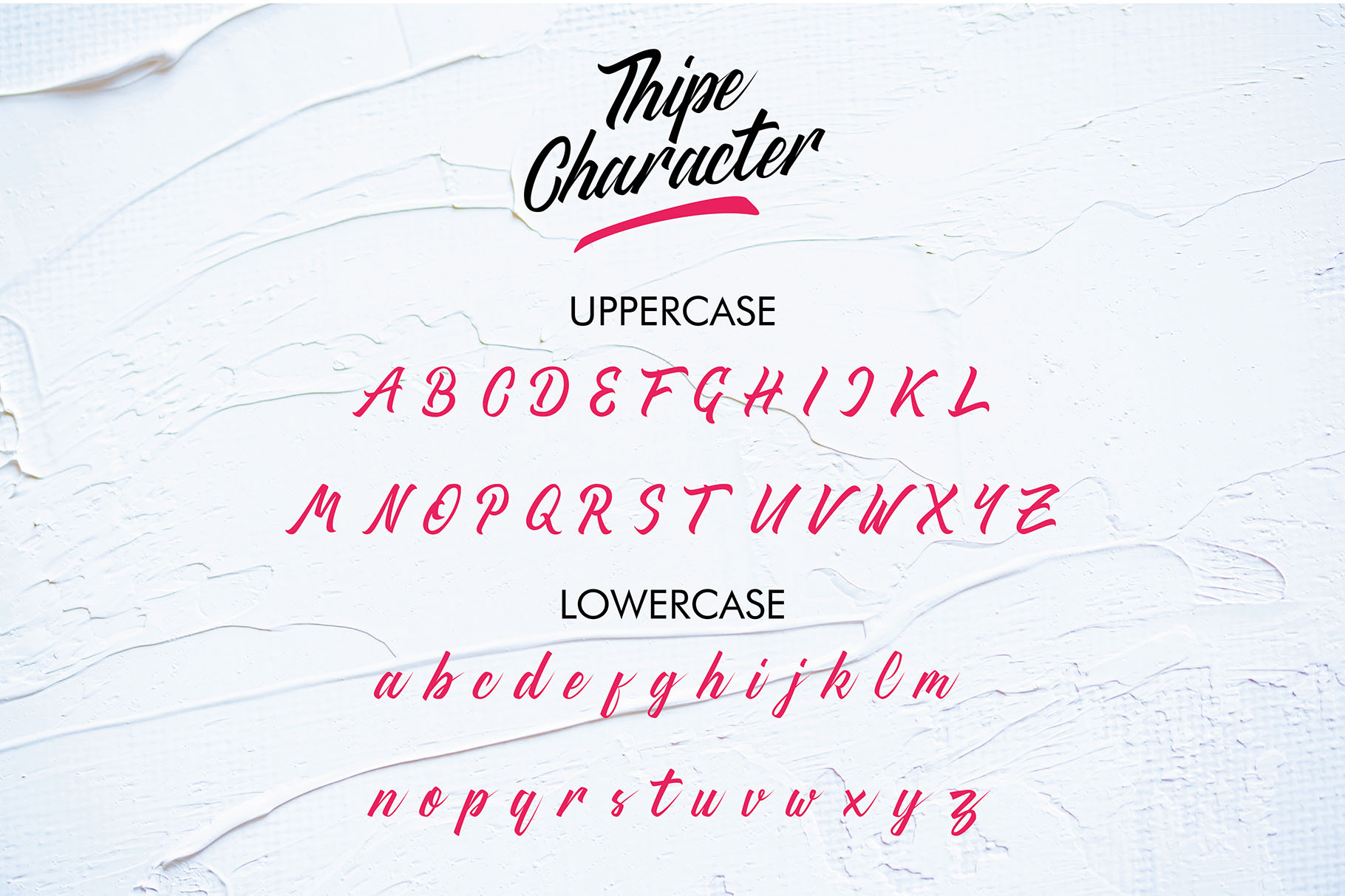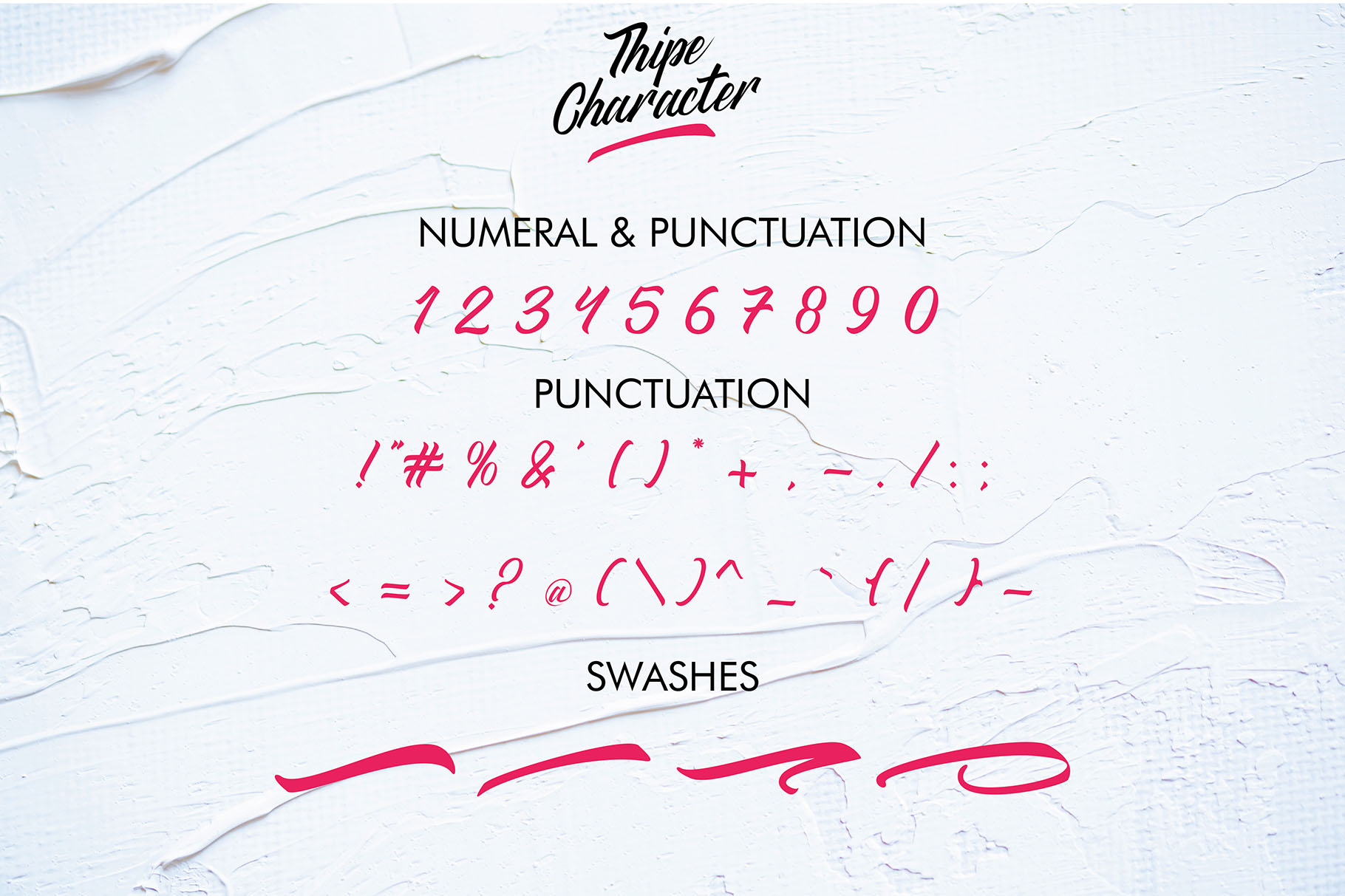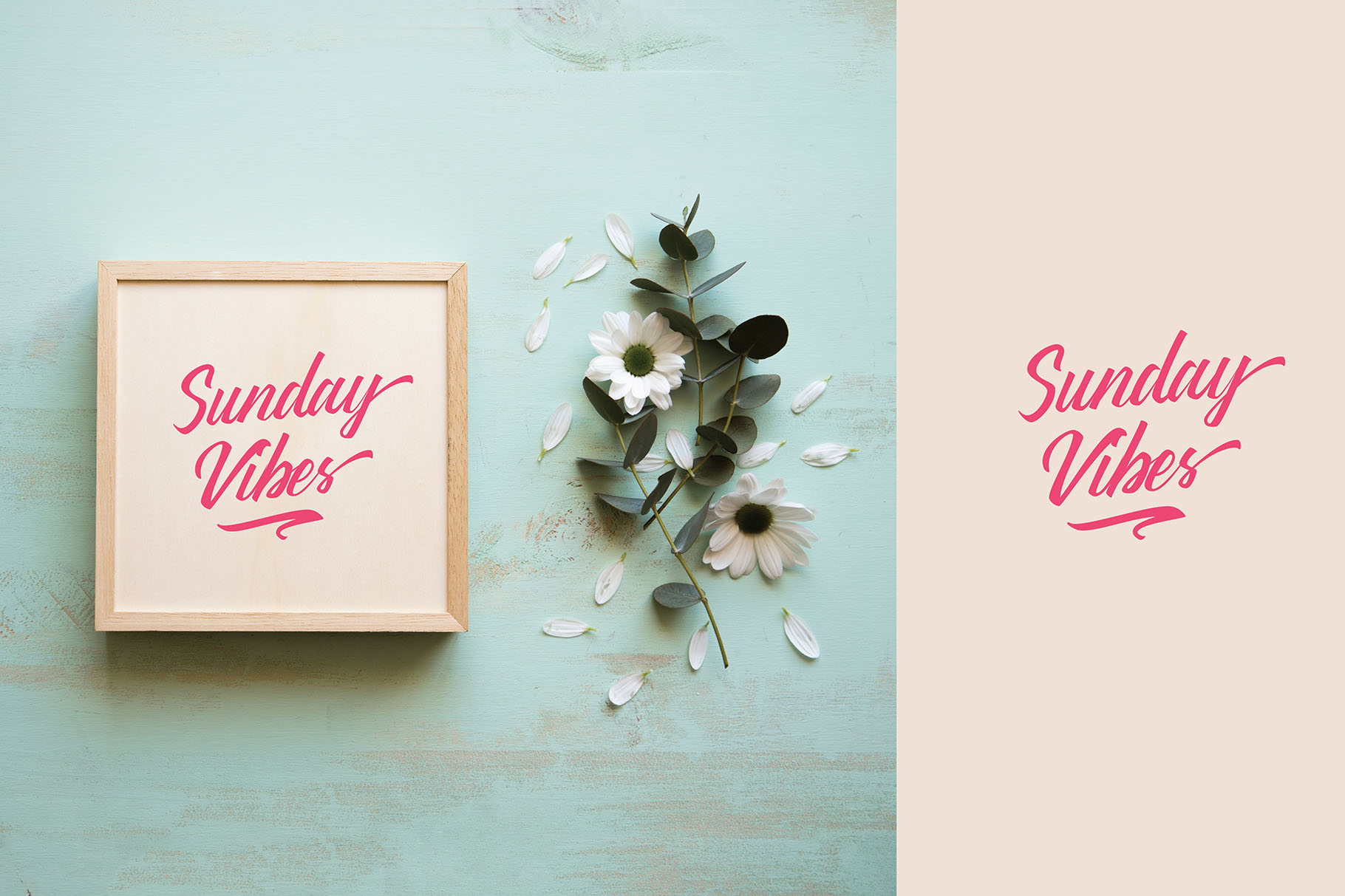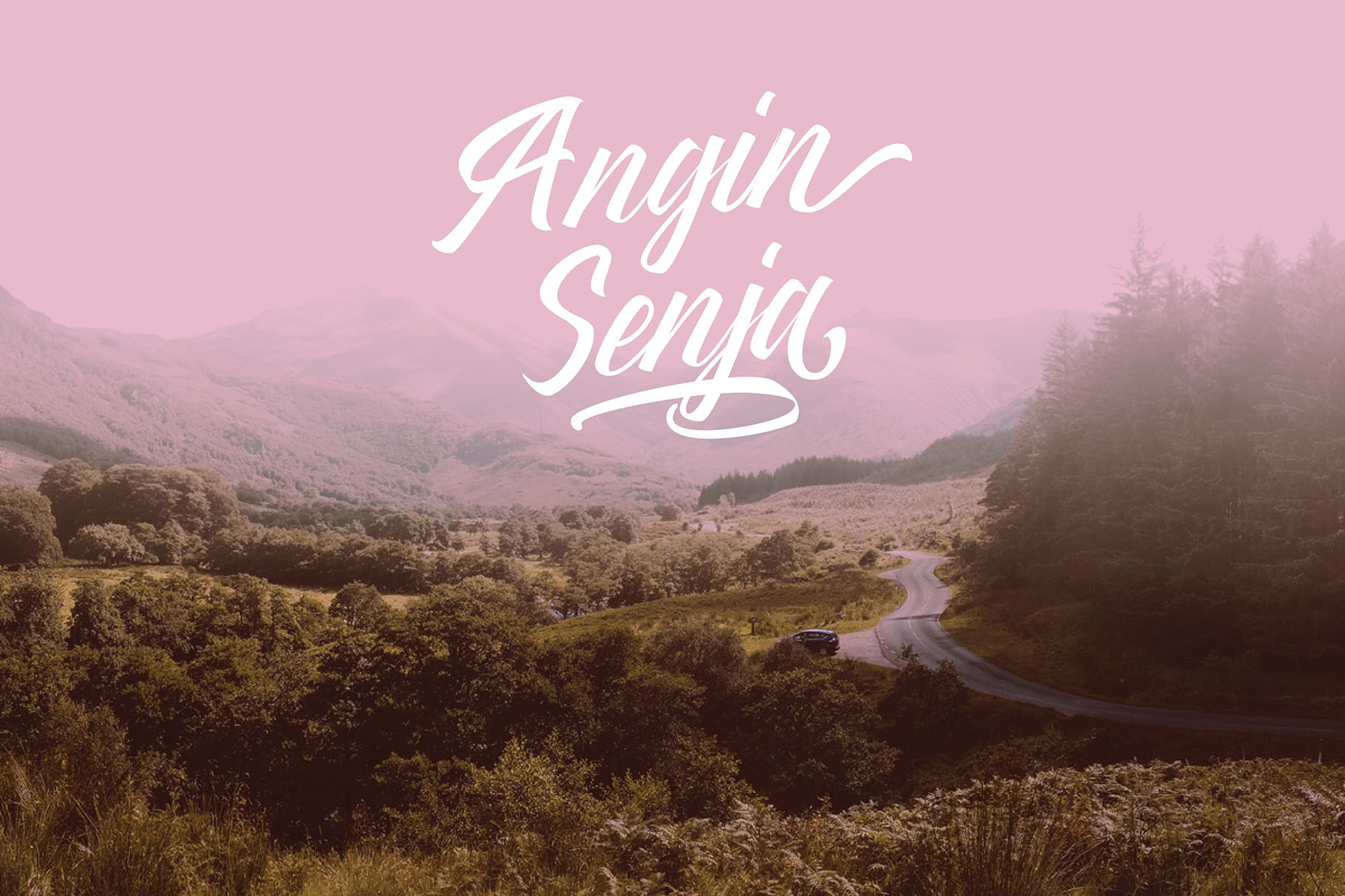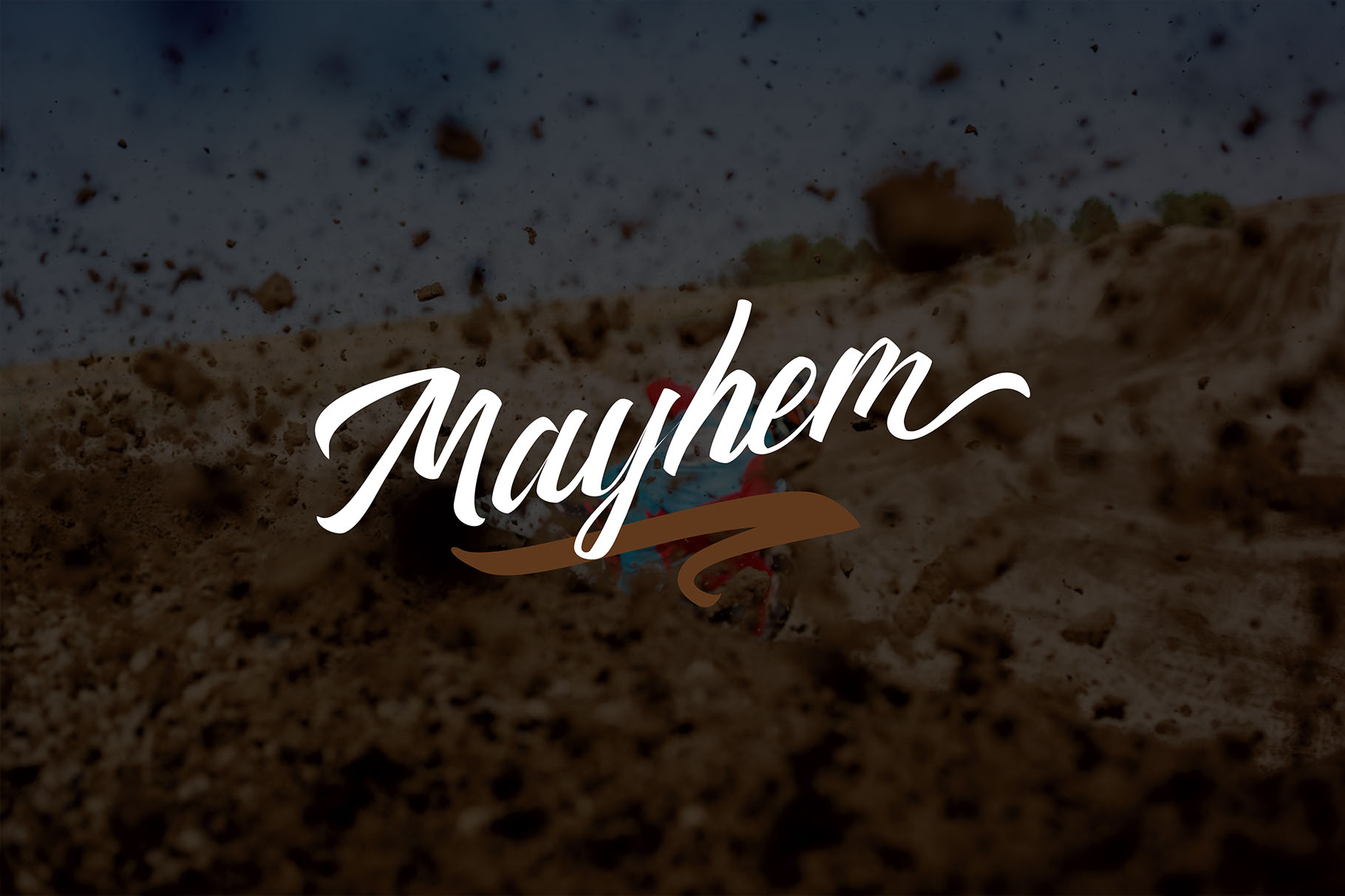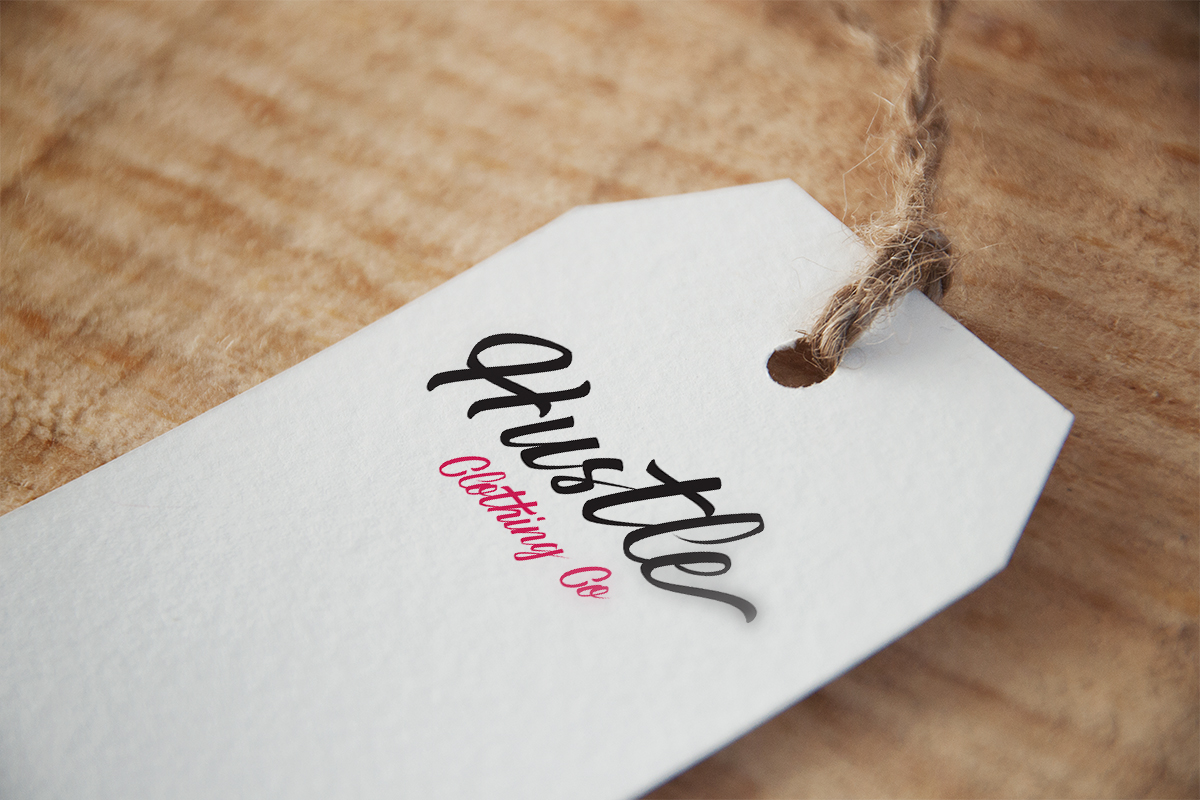
Thipe Font
About Thipe Font
Thipe is a gorgeous and painterly script font. Perfect for headlines and logotypes, Thipe has a intriguing slant that gives it a dynamism and movement that will gives your designs a kick.